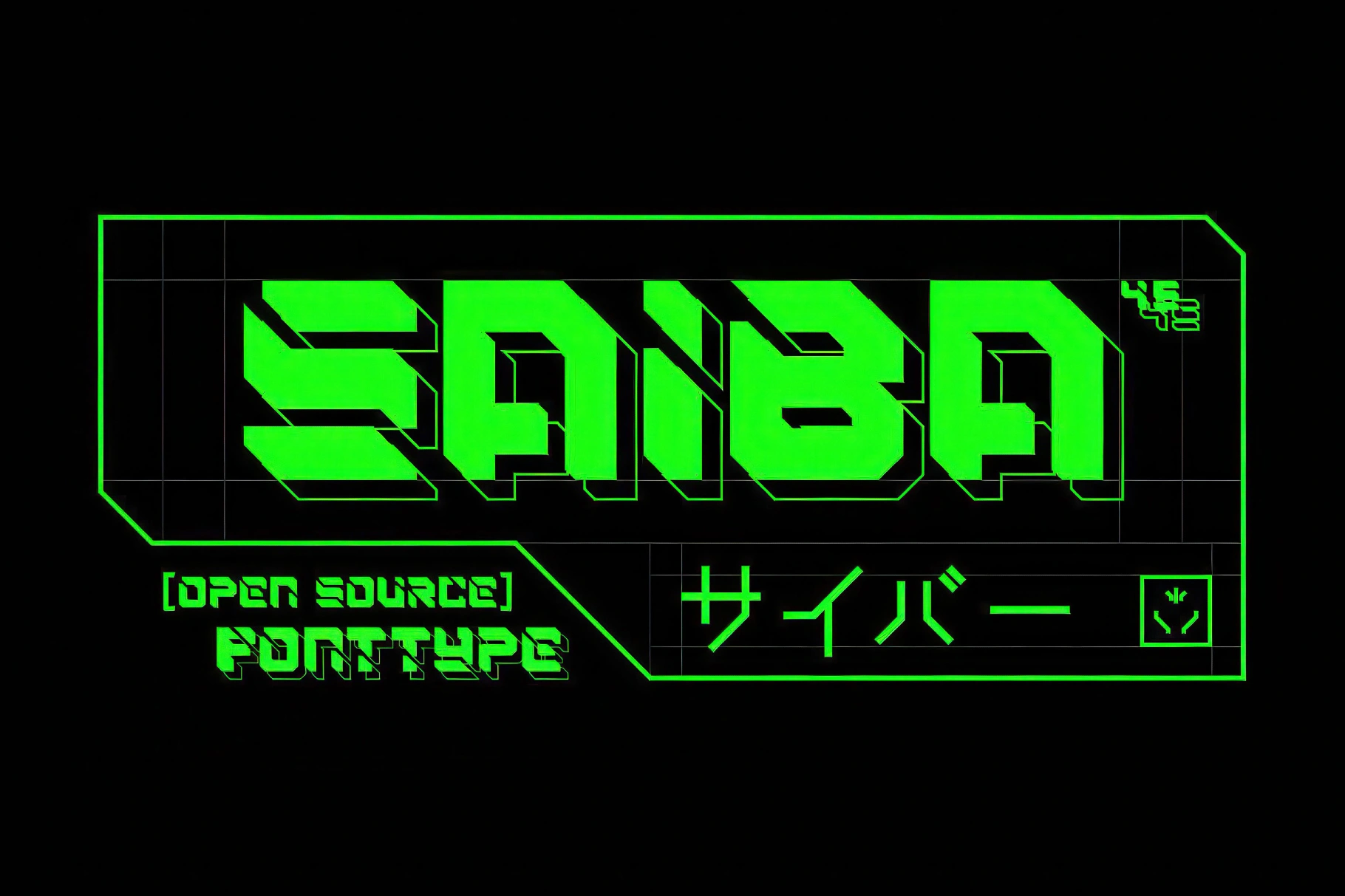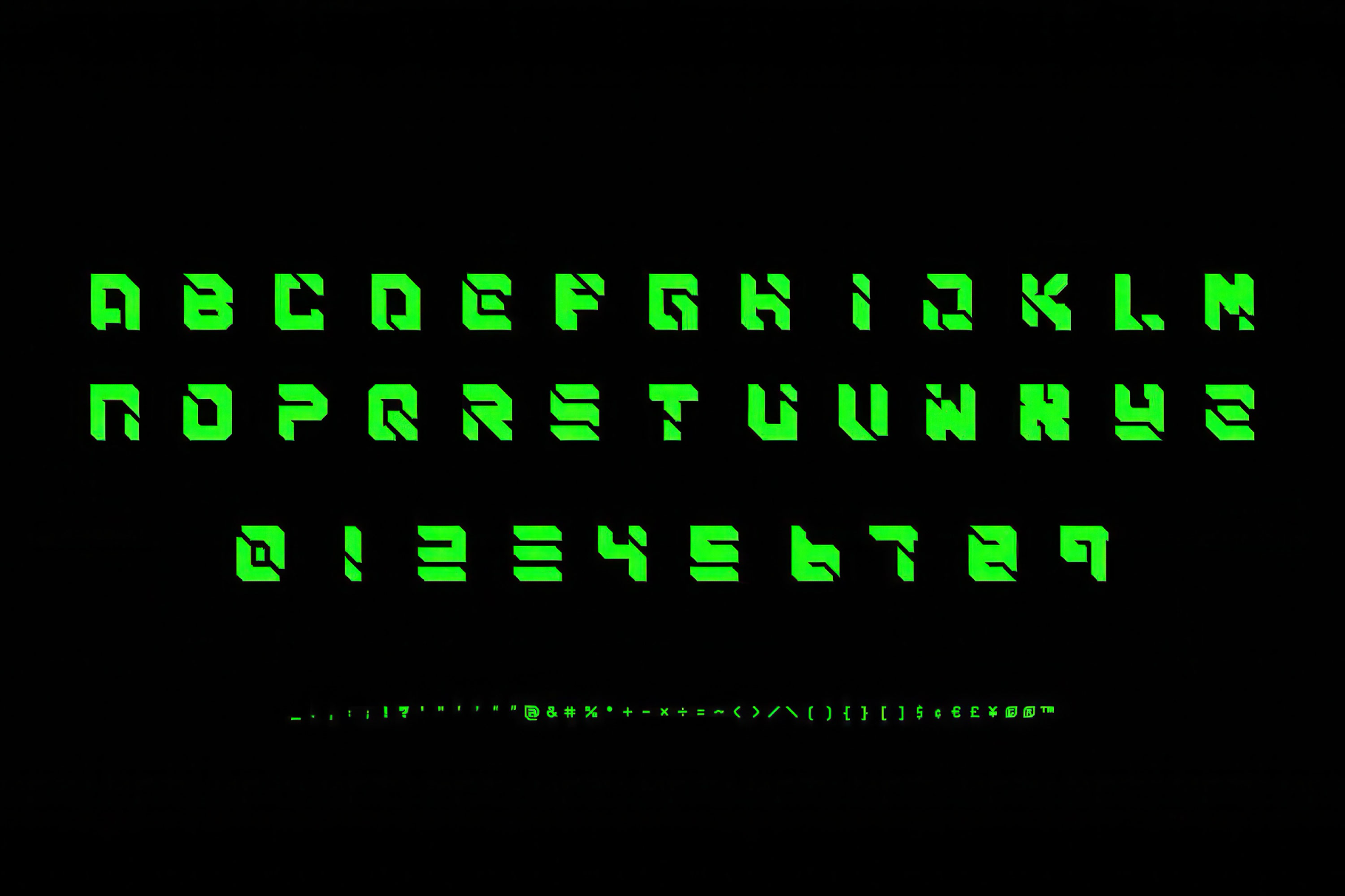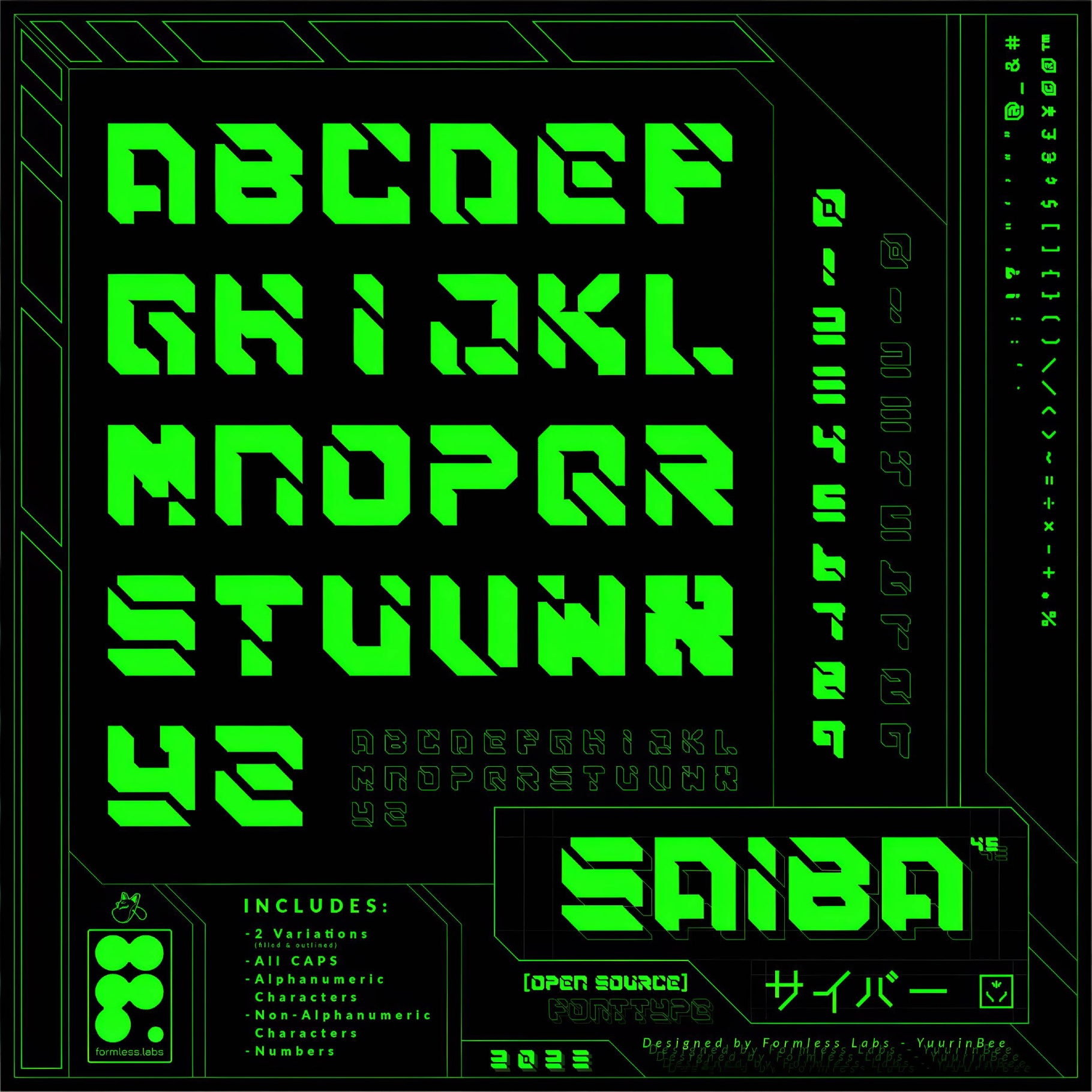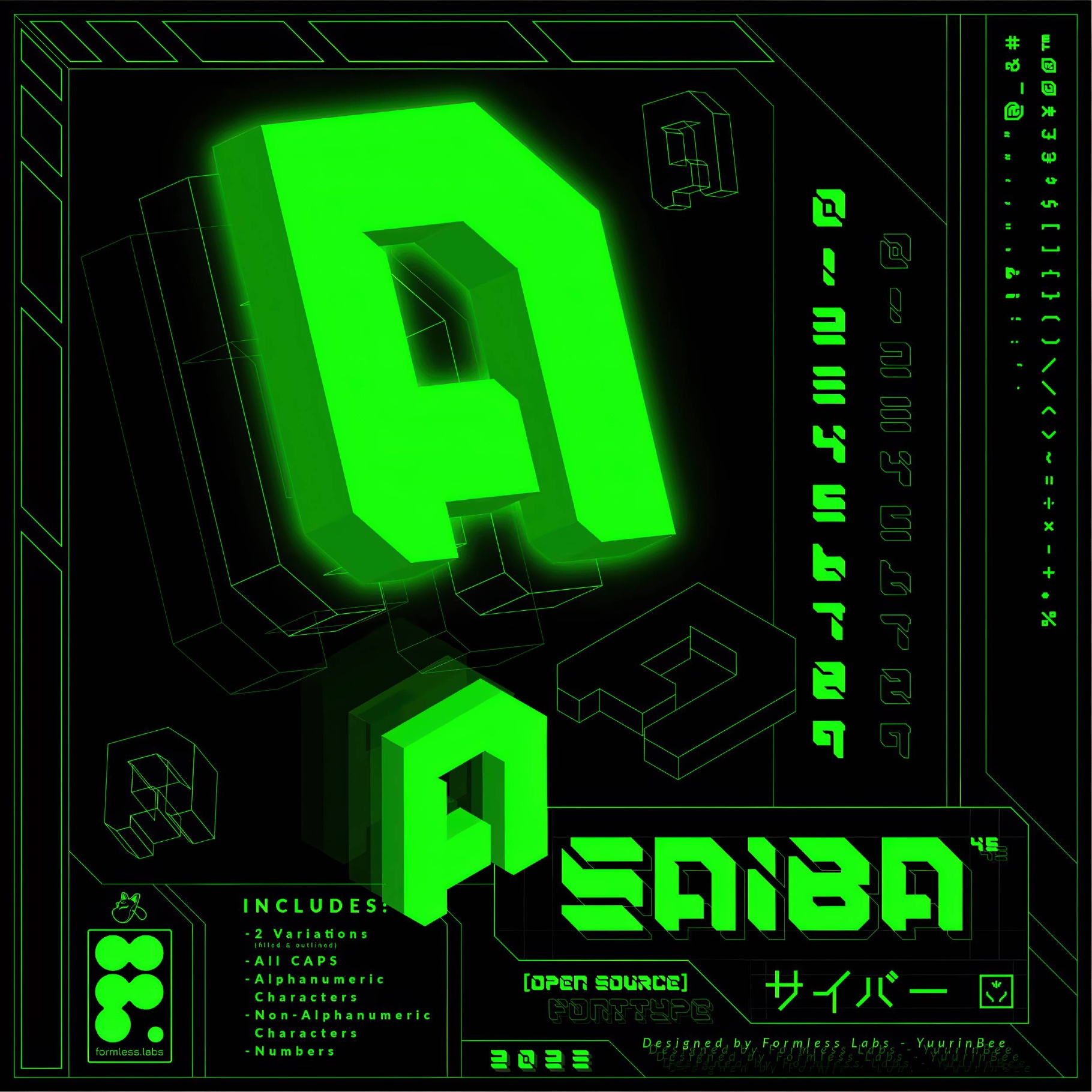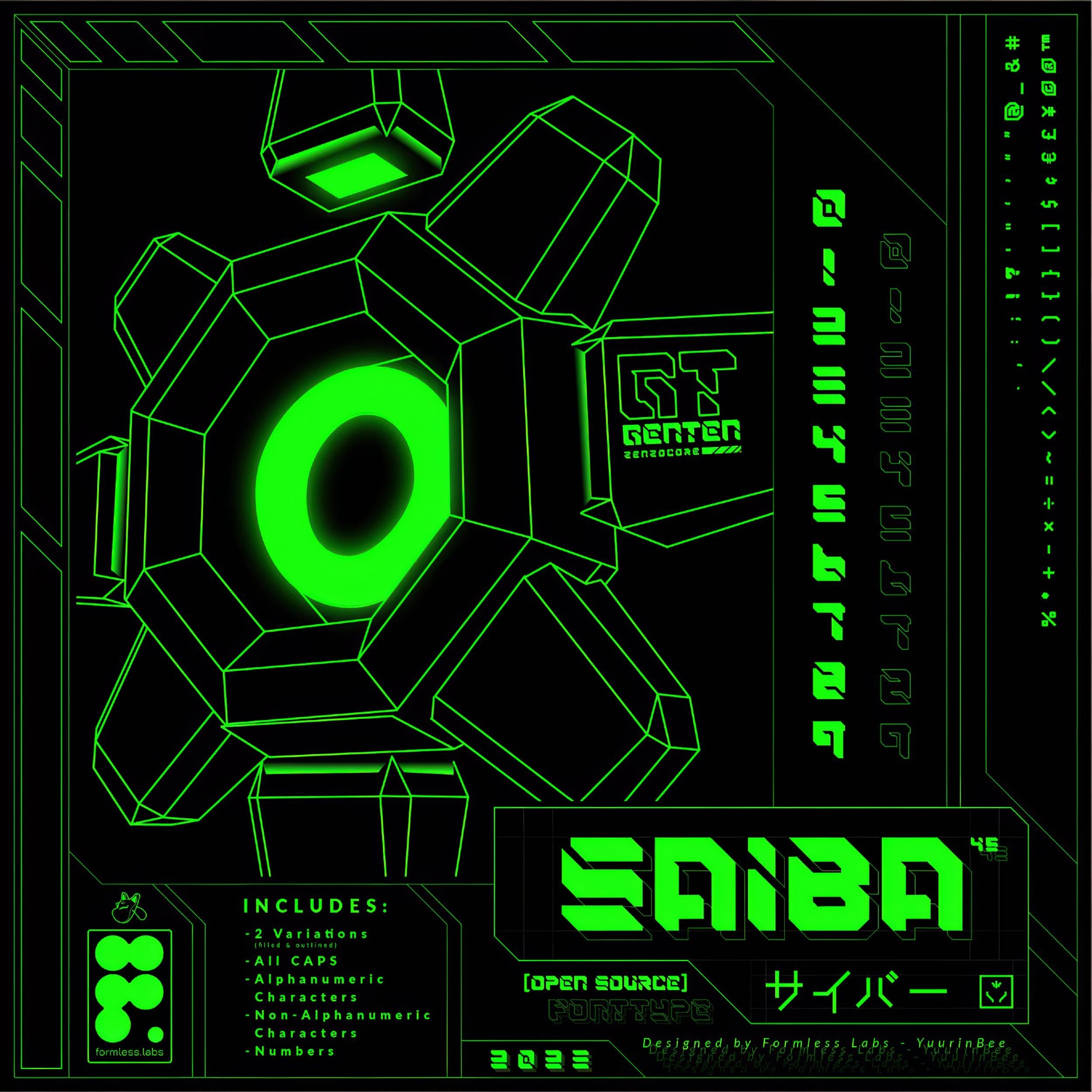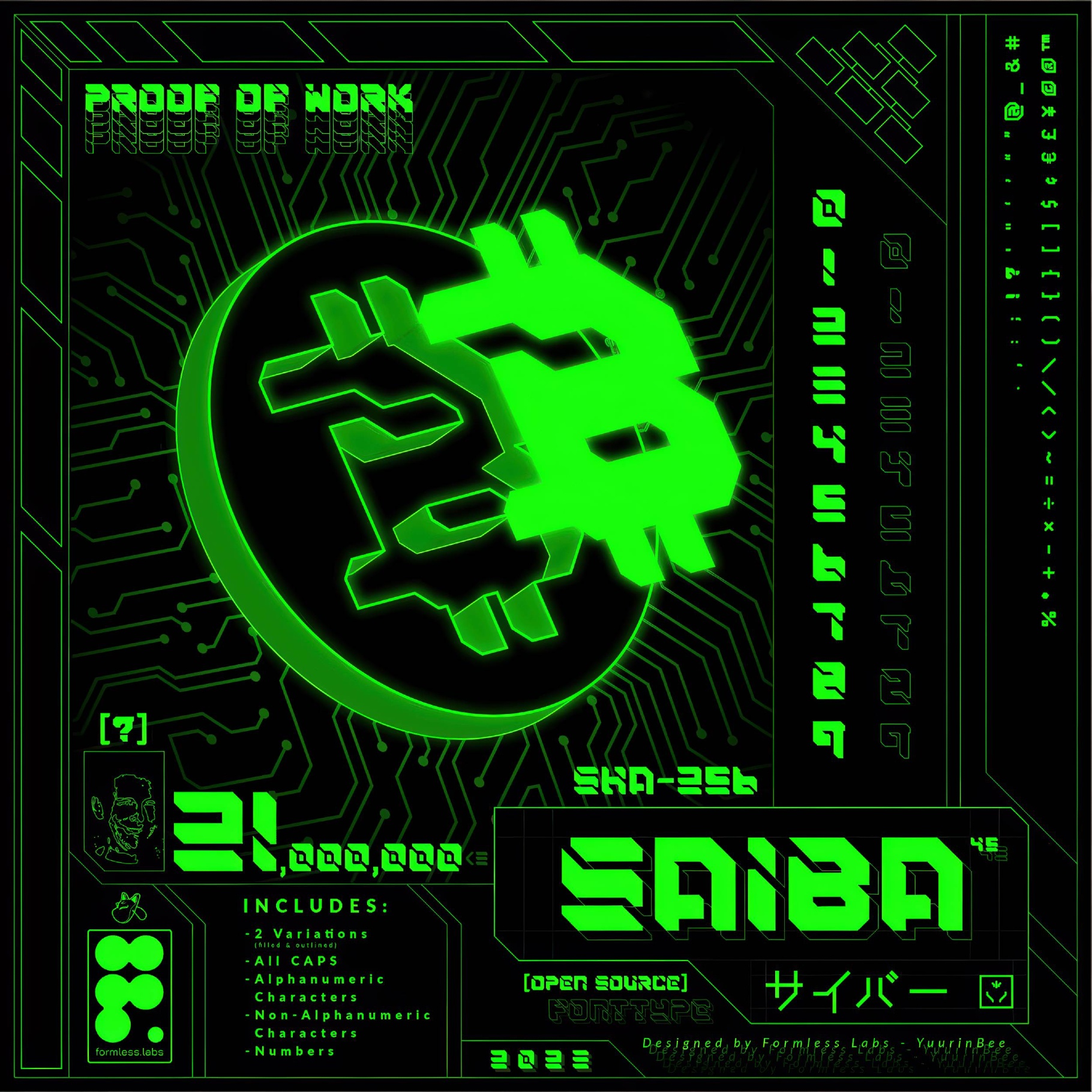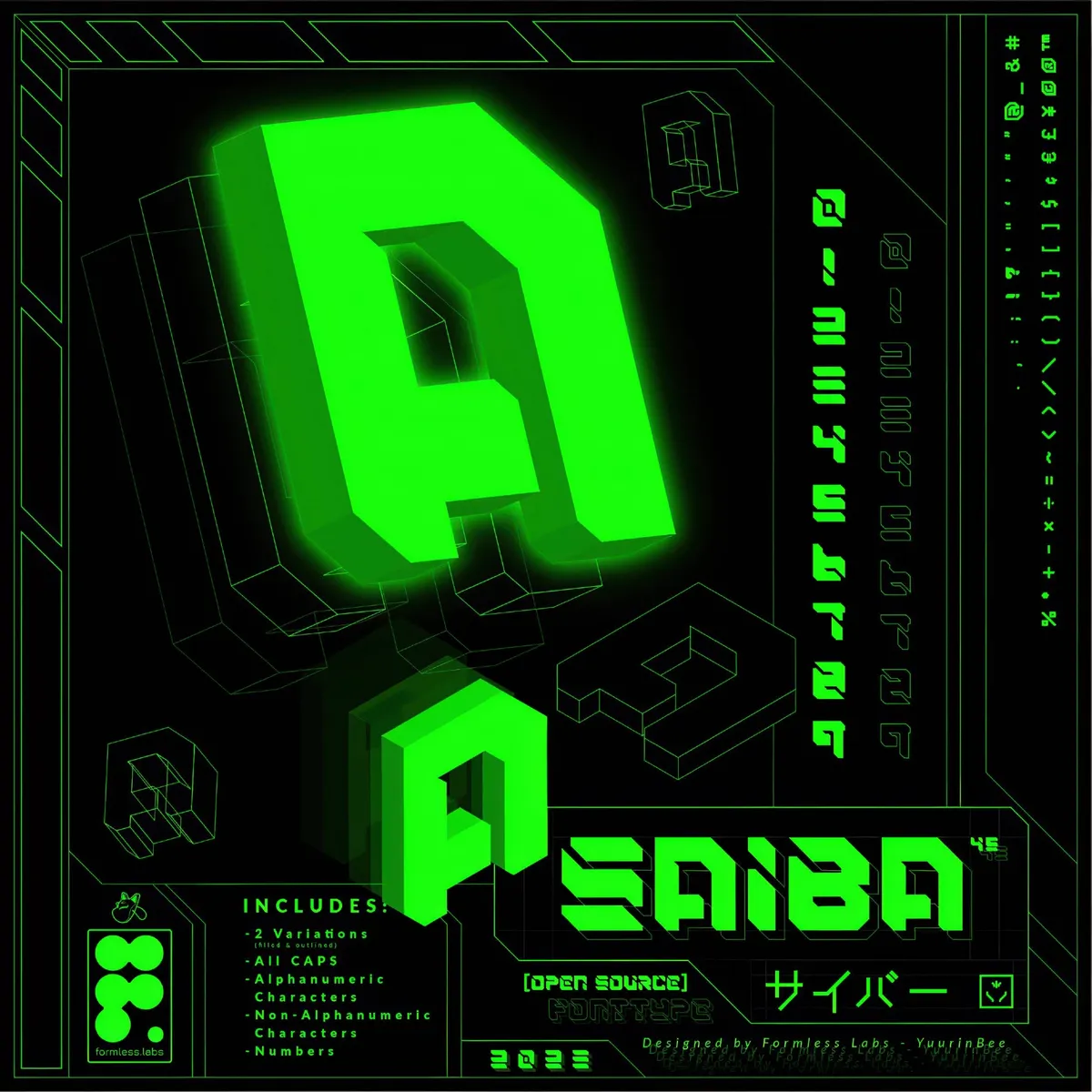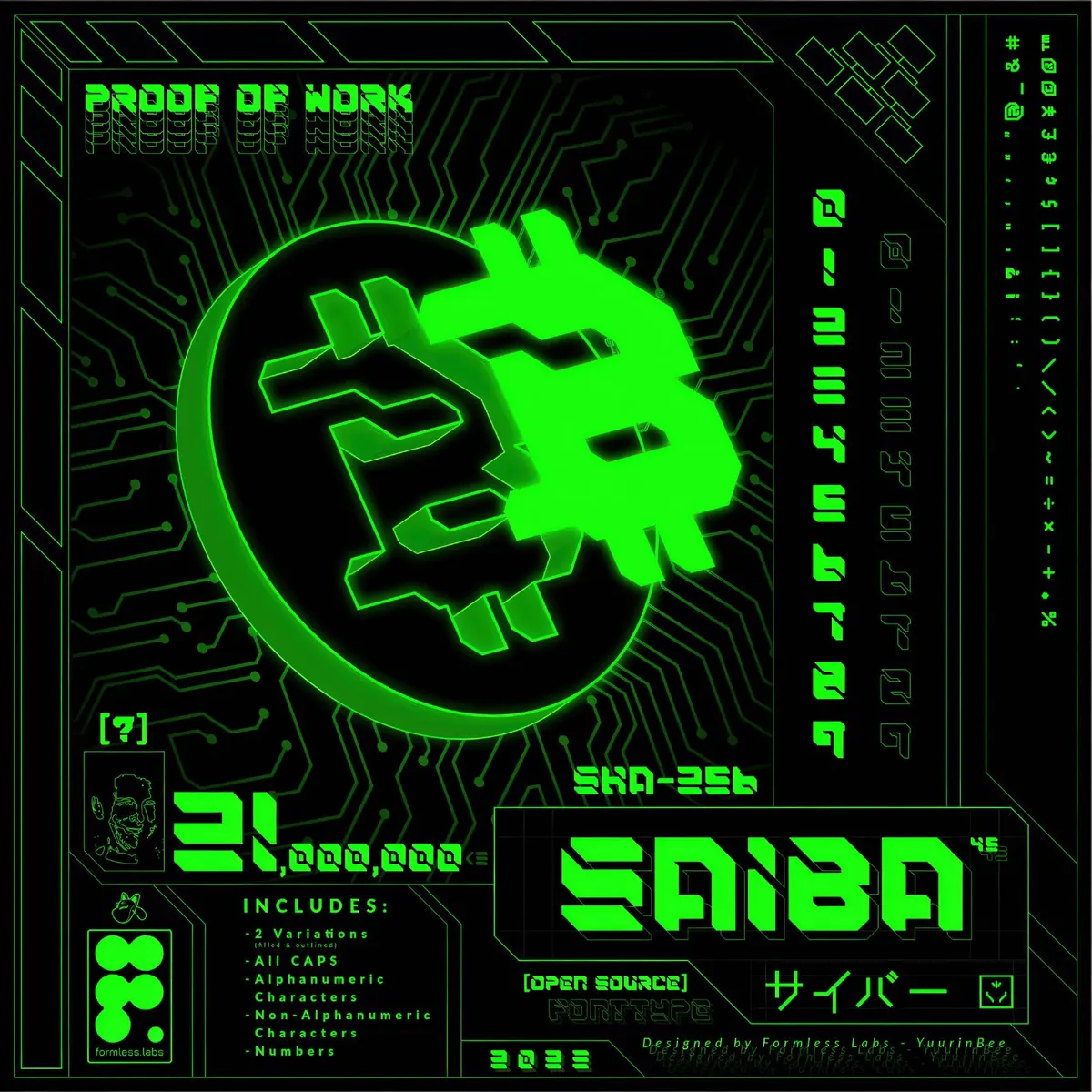
SAIBA-45 Font Family
SAIBA-45
The angular geometry and segmented cuts of SAIBA-45 give the letterforms a fast, electrically charged presence, with the precision you’d expect from mecha animes, Neo-Tokyo games, and sci-fi control systems.
The font can push a composition toward cyberpunk, futuristic action, and sleek machine aesthetics without losing legibility. It excels in poster headlines, game branding, album artwork, motion IDs, tech packaging, merch, event visuals, and editorial covers that need a fast, cinematic pulse.
- 2 styles: Regular and Outline;
- uppercase letters A–Z;
- numbers, punctuation, and symbols.